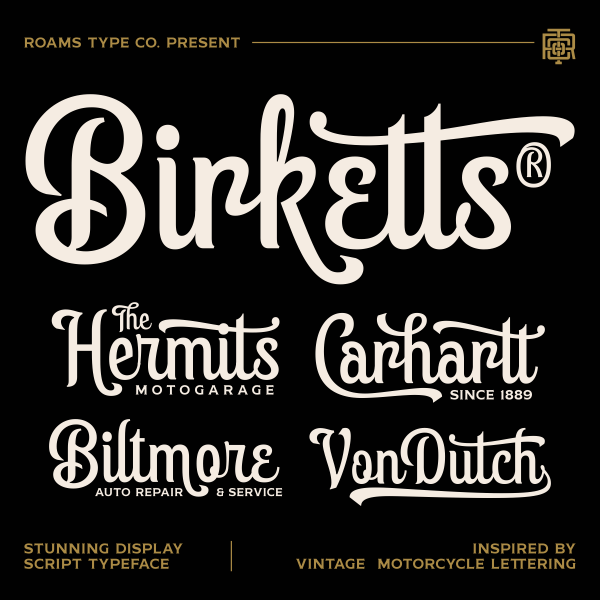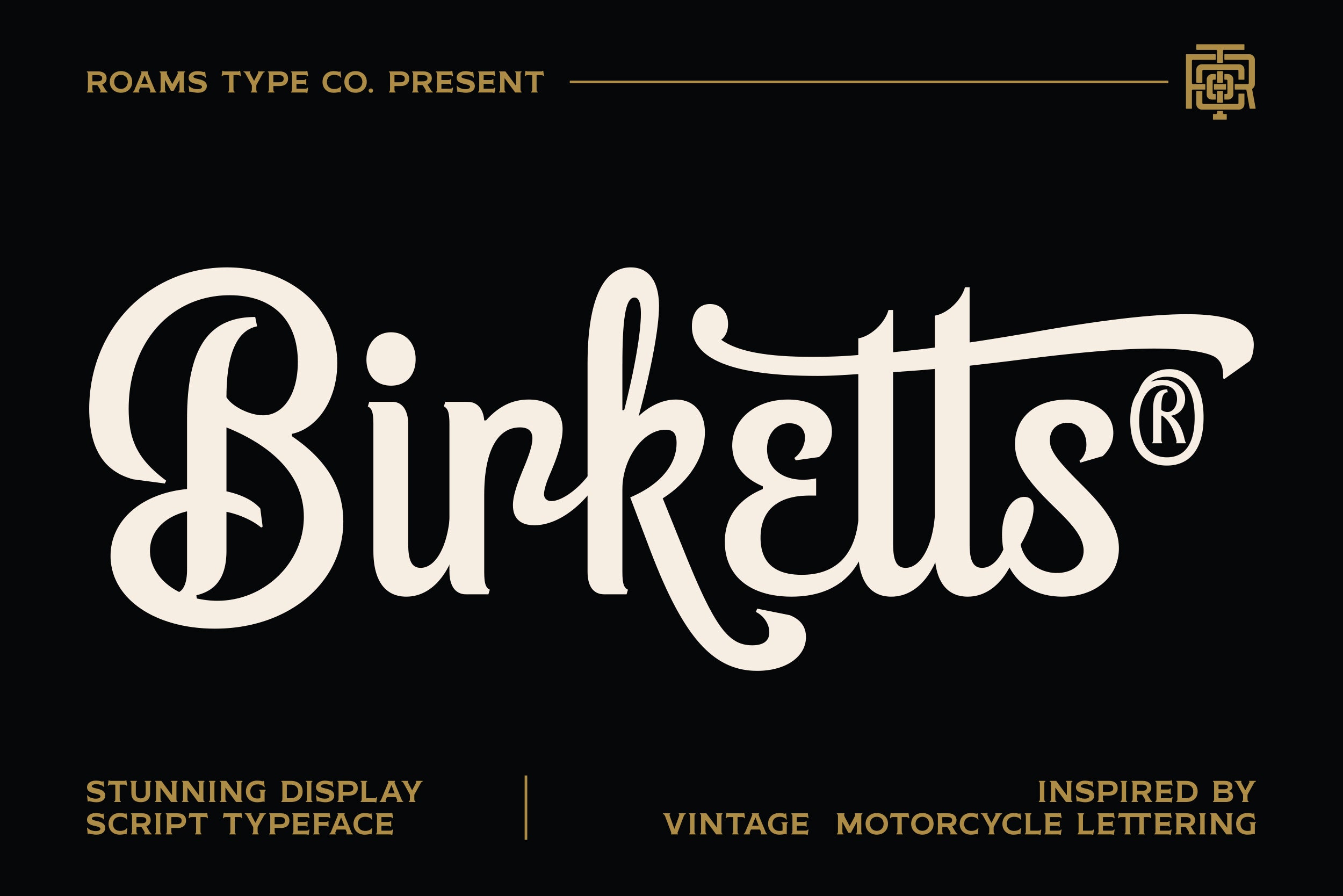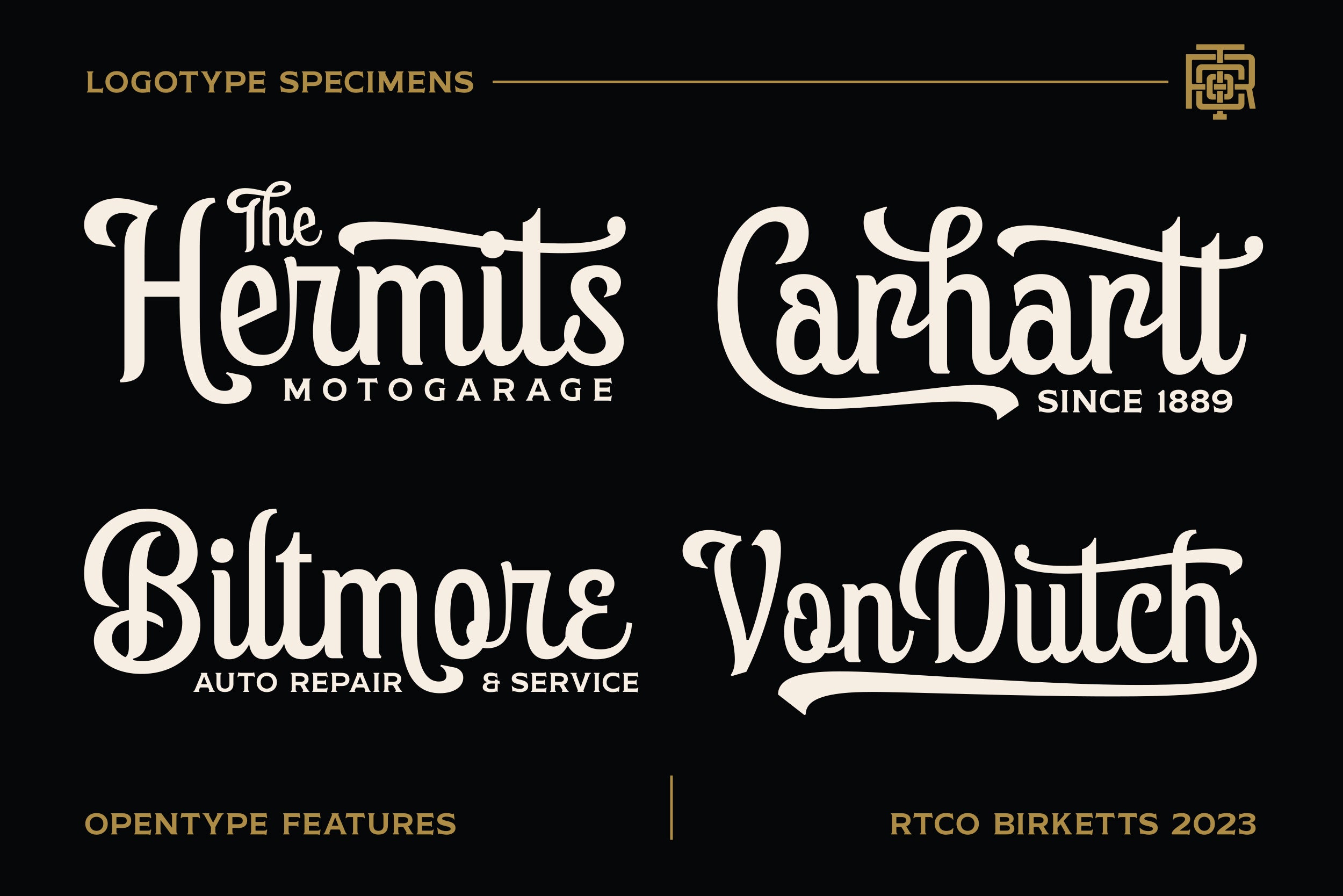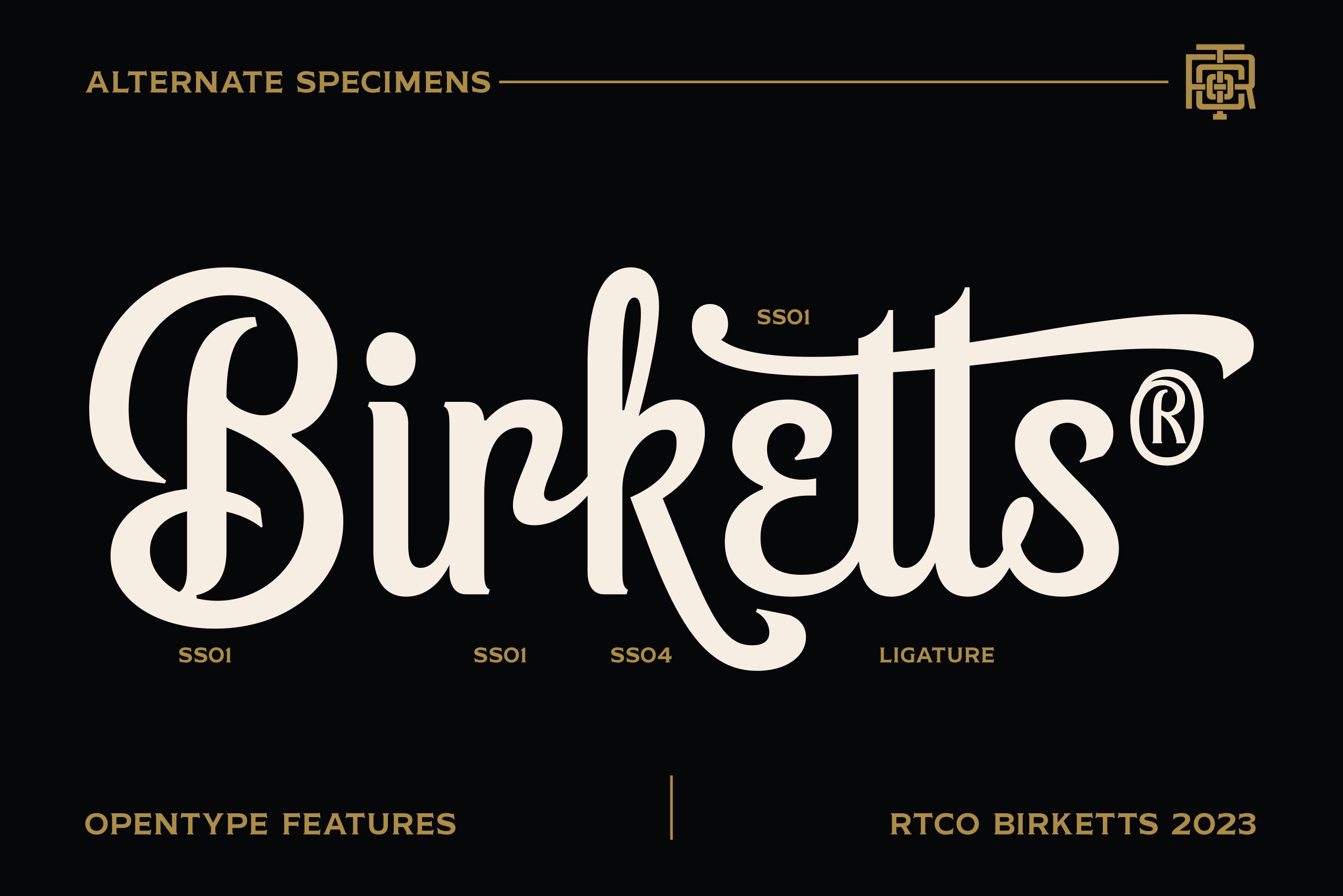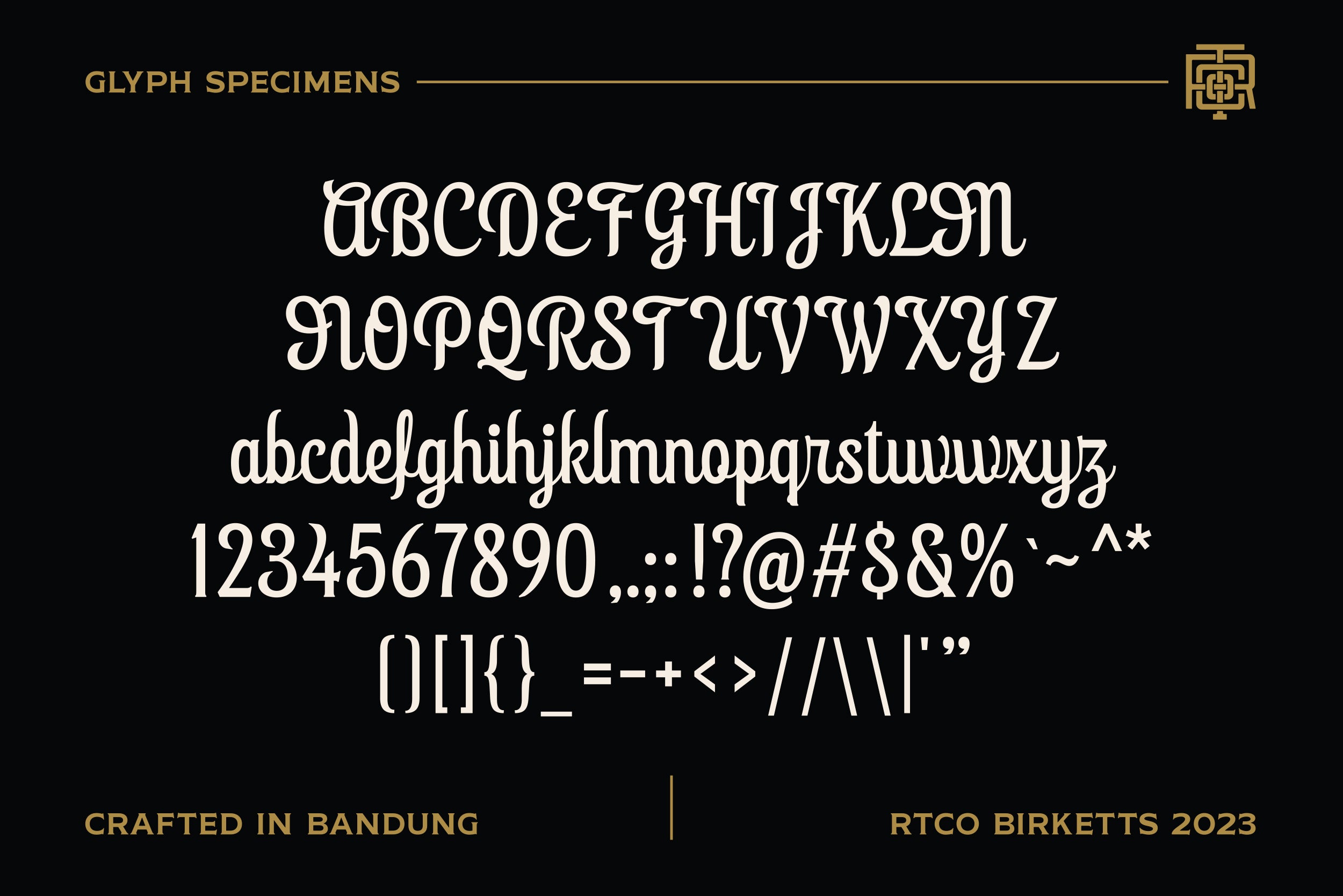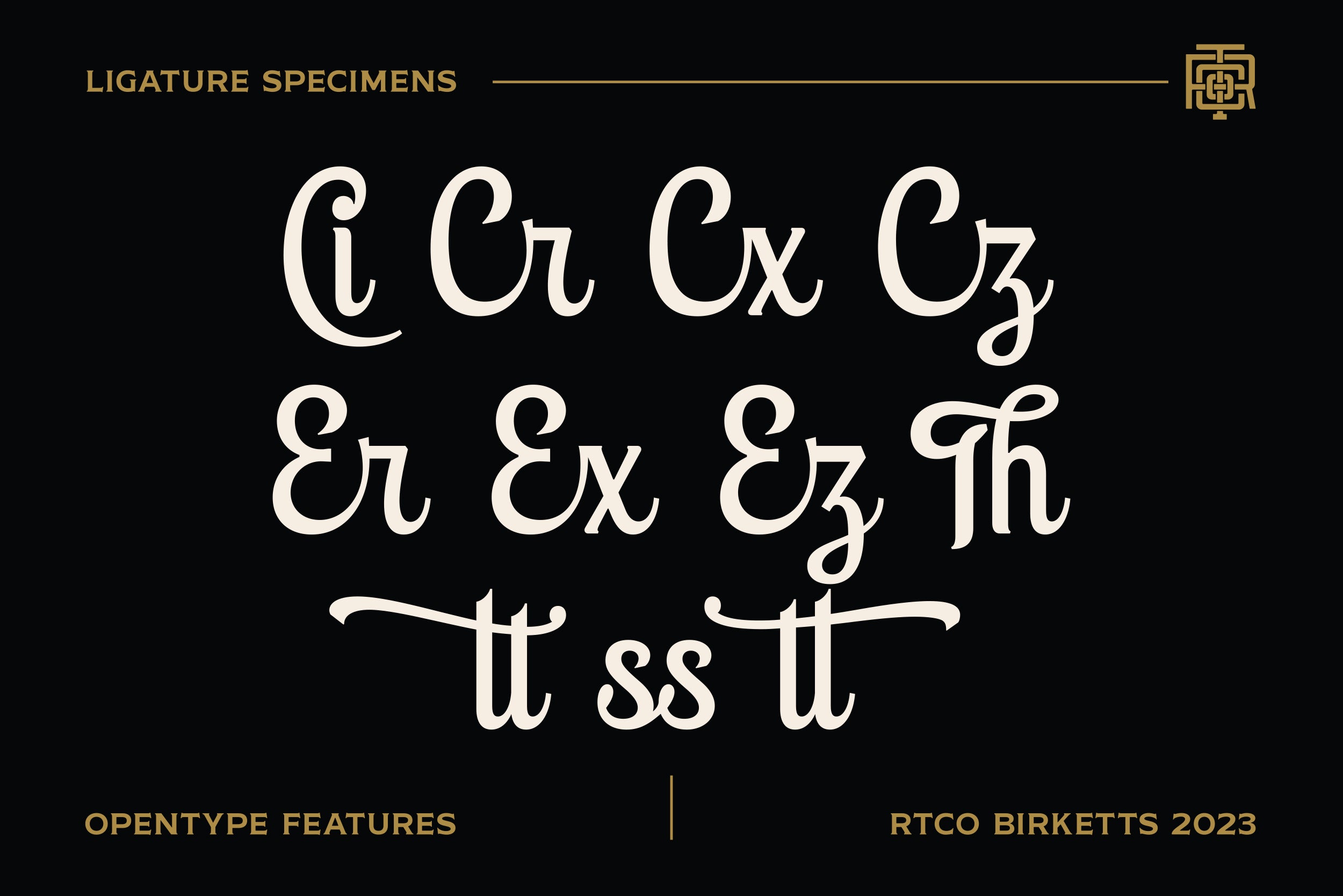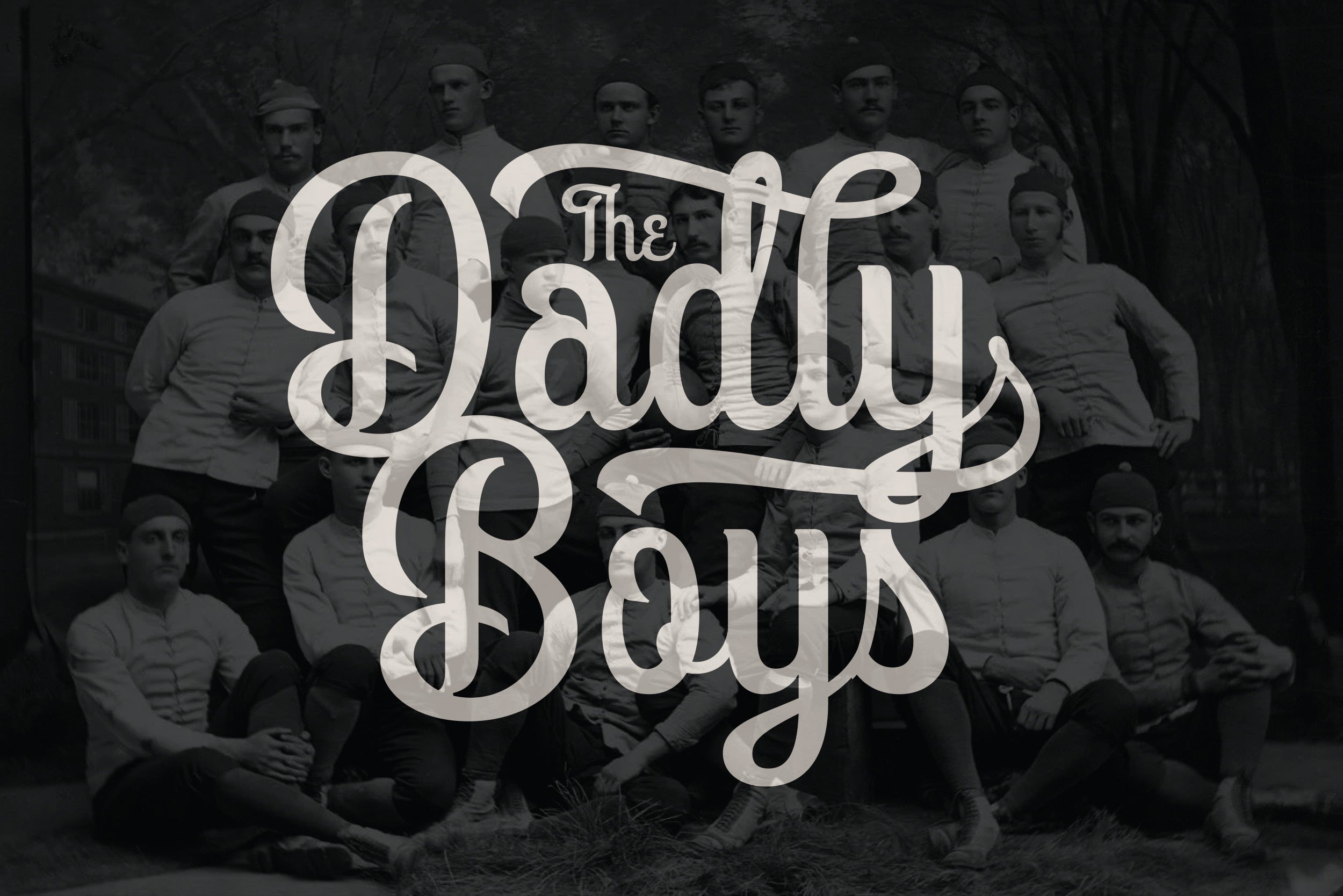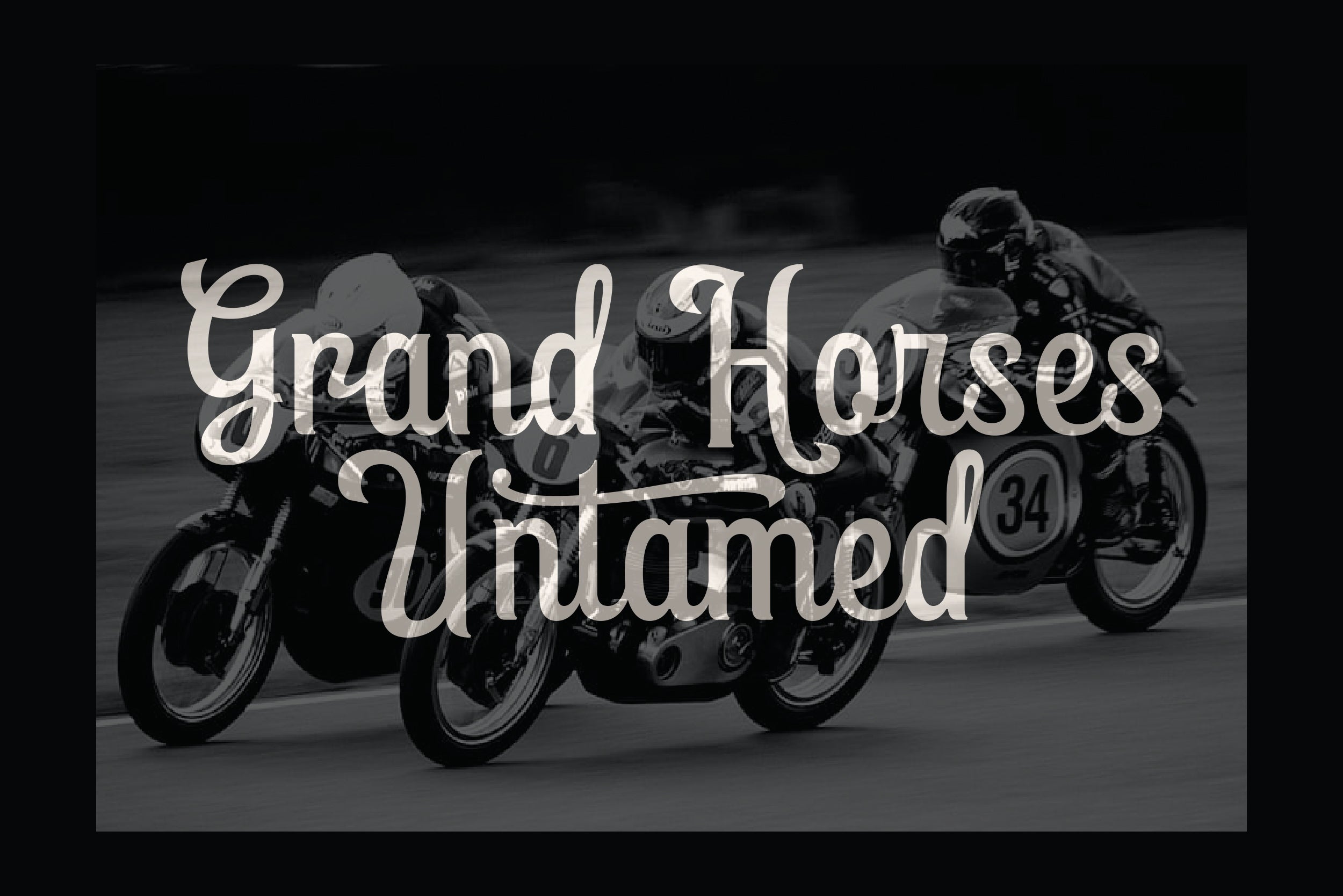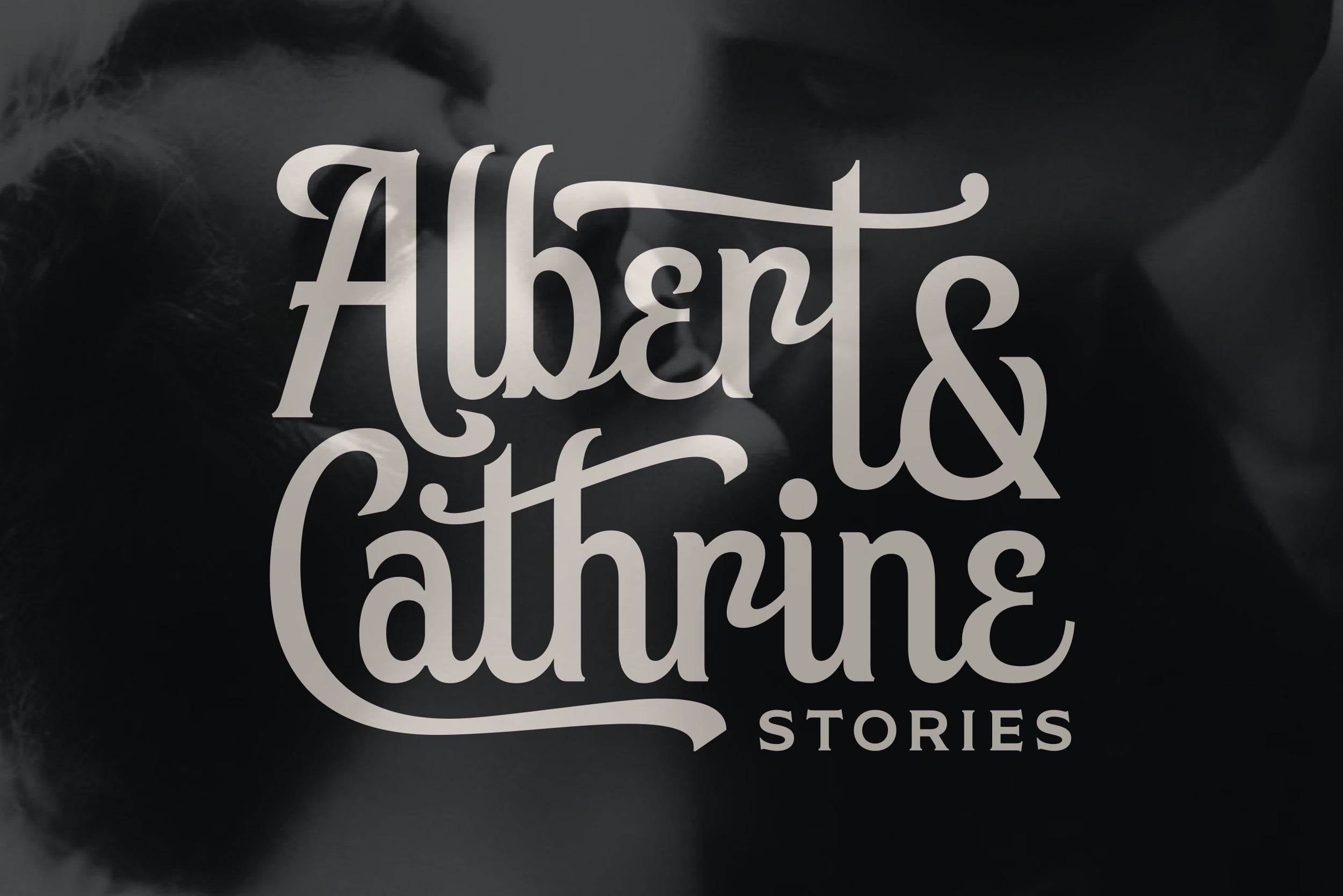
Birketts - Classy Motorcycle Font
Roams Type Co.
Birketts Font made based on the concept of vintage style graphic design, inspired by the stunning lettering vintage motorcycle logotype.
This font is suitable for graphic designs such as logotypes, merchandise, printed stickers, and other branding needs.
Birketts - Classy Motorcycle Font is a vintage-style typeface inspired by classic motorcycle logotypes, featuring both uppercase and lowercase letters, numerals, and punctuation. This font is provided in OTF format and includes multilingual support.